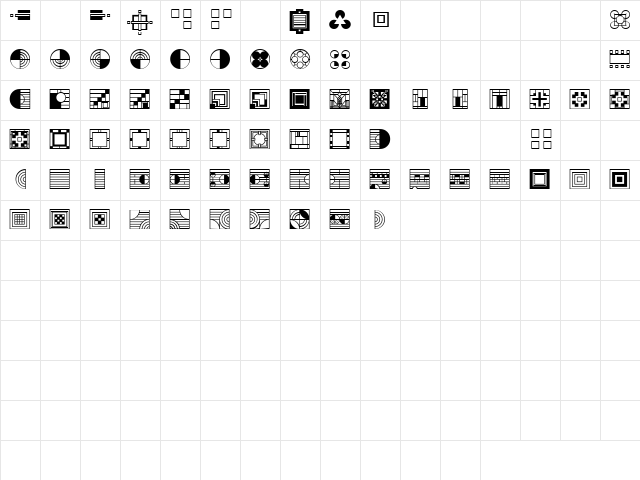
Complete P22 FLLW Exhibition Extras Extras glyph index. Displaying only characters natively supported by P22 FLLW Exhibition Extras Extras font.
P22 FLLW Exhibition Extras is a composed and adaptable typeface that performs quietly and consistently across a wide range of design contexts.